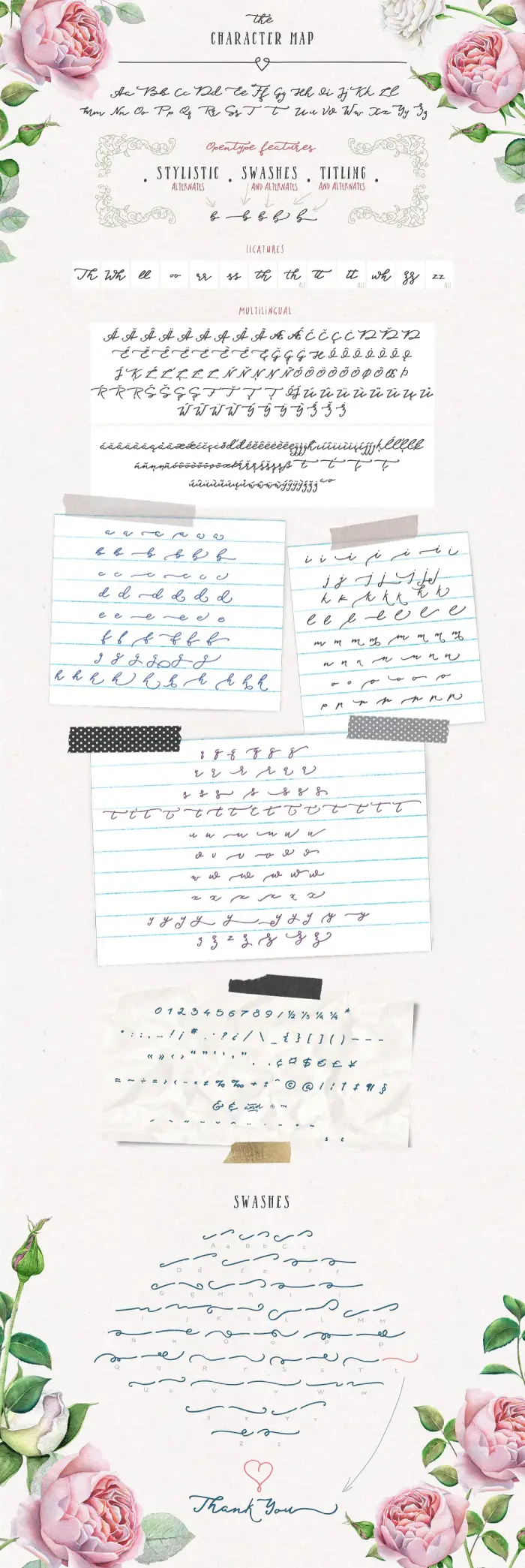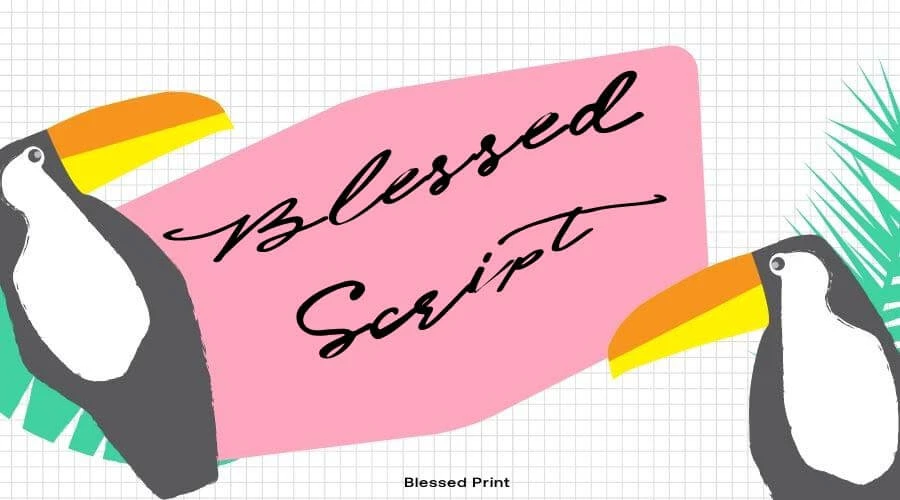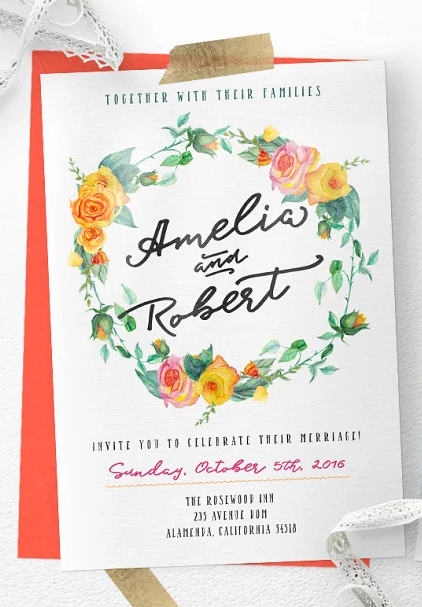
Blessed Script font is a handwritten calligraphy typeface font designed by Blessed Print. With a playful yet elegant baseline, this font is very attractive and eye-catching. It is a unique hand-lettered font. BlessedScript consists of a large number of alternates & ligatures which get you an absolutely unique look for every single word.
Blessed Script font is perfect for:
- Wedding invitations.
- Logos.
- Business cards.
- Crafting.
- Quotes.
- Stationary.
- Decoration.
- YouTube thumbnail.